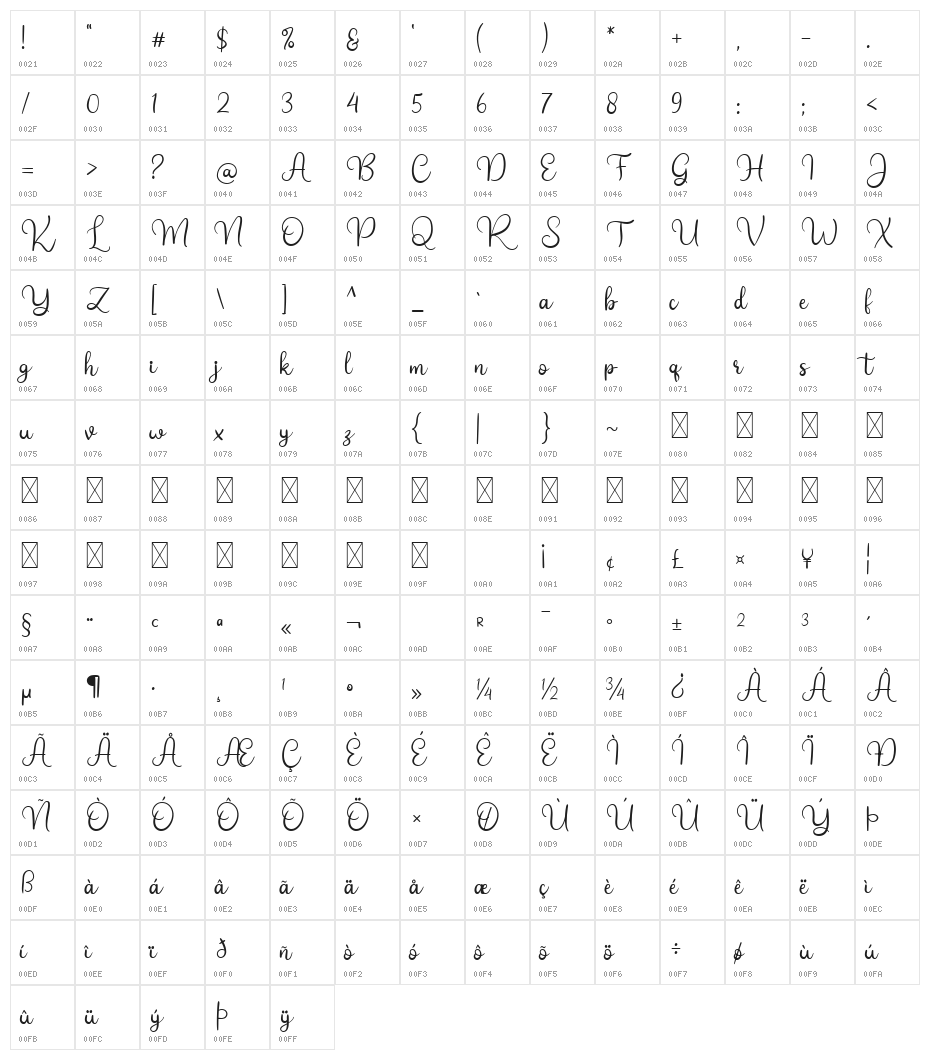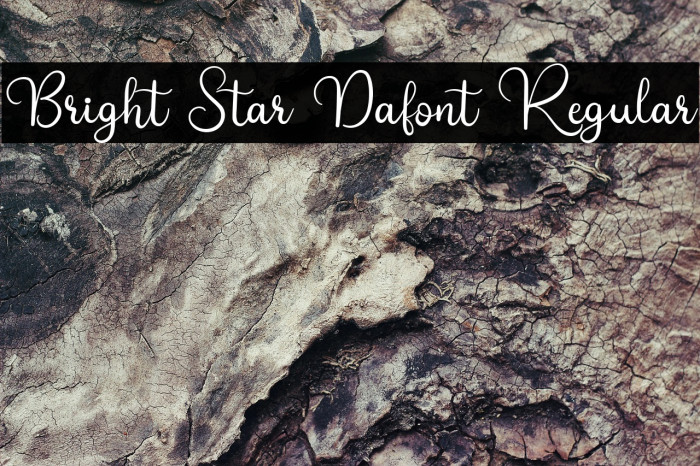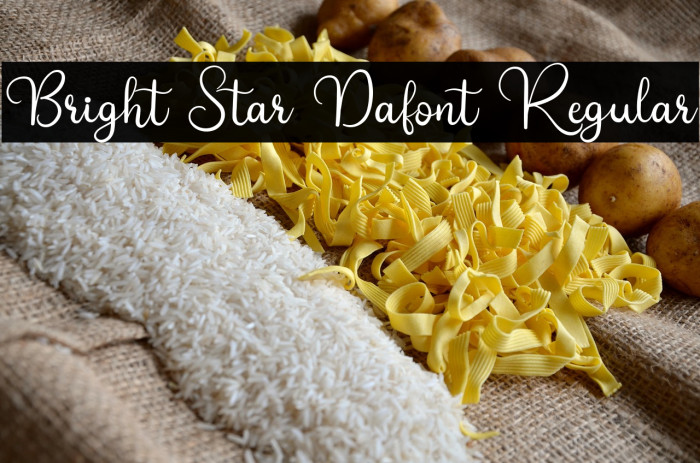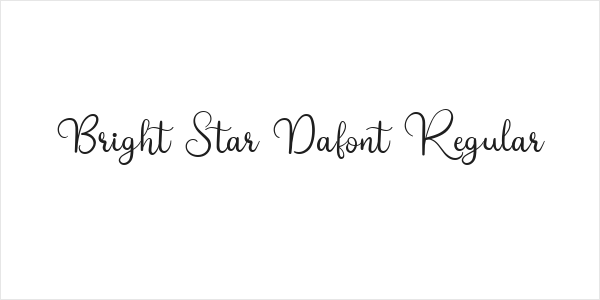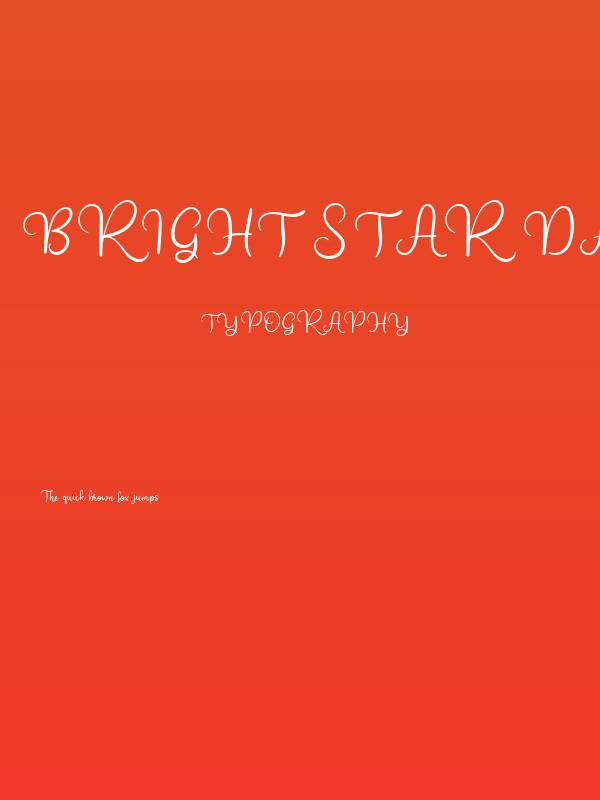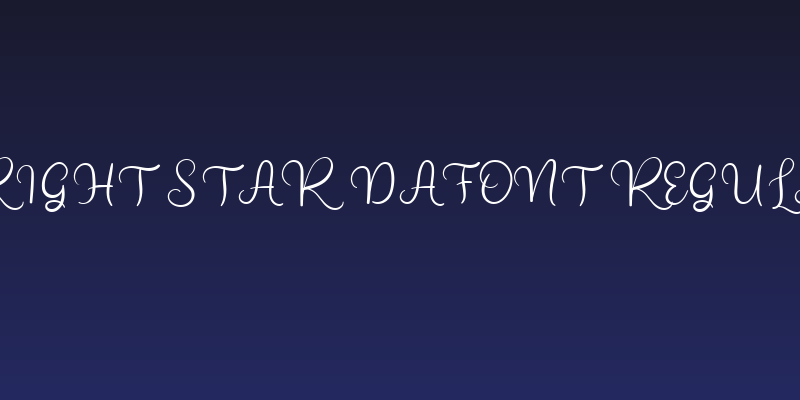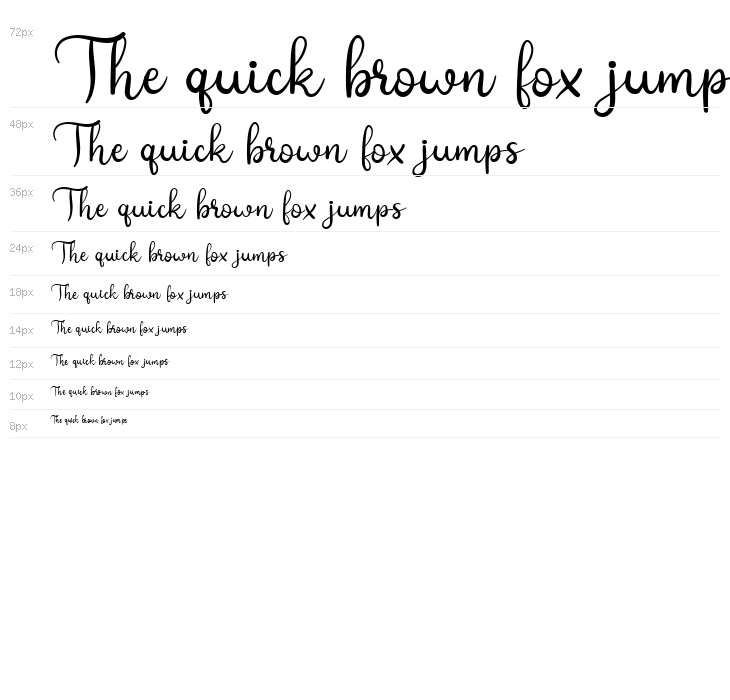
Bright Star Dafont Regular Font
Bright Star Dafont Regular Description
This font features an elegant and flowing script style, characterized by its smooth, cursive strokes and a sense of fluidity. The uppercase letters exhibit a graceful, looping design, while the lowercase letters maintain a consistent, connected flow. The numerals are clear and maintain the script style, ensuring readability. Special characters are thoughtfully integrated, matching the overall aesthetic. This font exudes a sense of sophistication and charm, making it ideal for projects that require a touch of elegance.